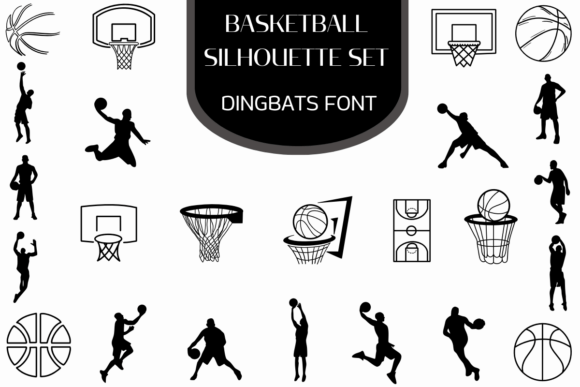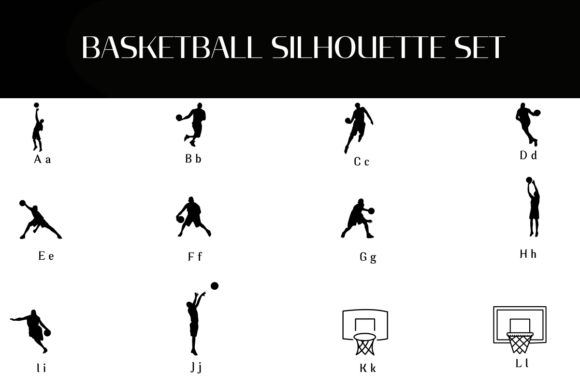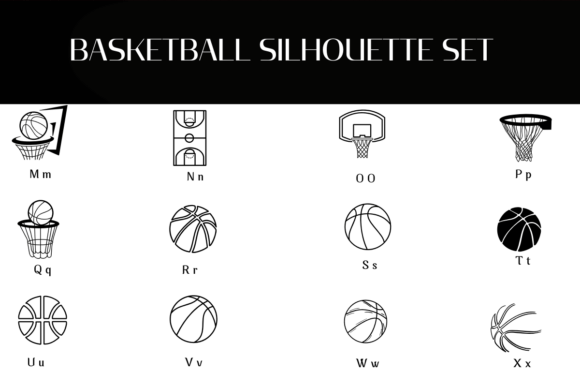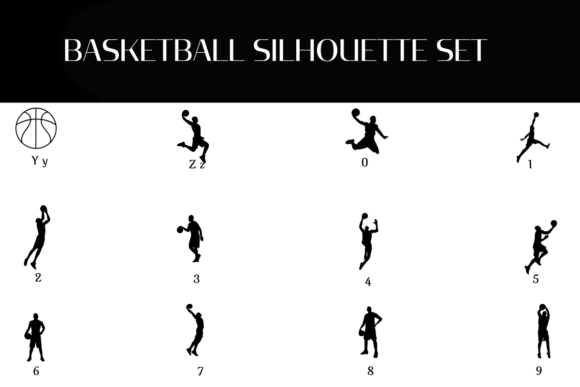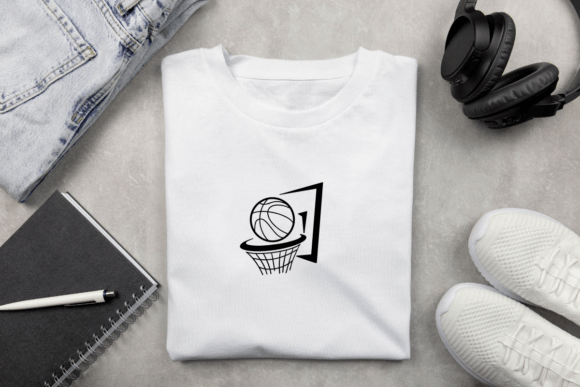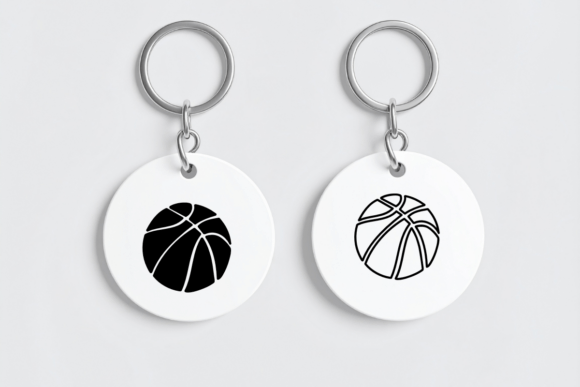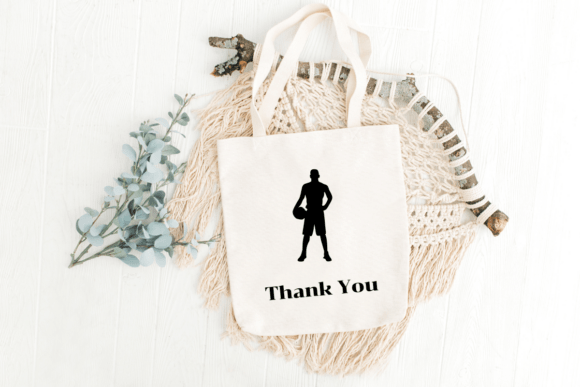
Score Big with the Basketball Silhouette Set Font
As you sit in front of your computer, staring at a blank canvas, and the deadline is looming, you finally get that spark of creativity. The excitement builds up as you imagine the perfect sports-themed design – a dynamic layout that captures the essence of the game. But, you need the right tools to bring your vision to life. That’s where the Basketball Silhouette Set Font comes in – a high-energy dingbats font that offers a comprehensive collection of icons.
Designed specifically for sports enthusiasts and designers alike, this versatile font provides a mix of detailed silhouettes and clean line art, making it perfect for high-impact graphics, technical diagrams, or subtle background patterns. Whether you’re designing for a professional league or a local community team, the Basketball Silhouette Set Font brings a professional, athletic edge to your layouts, making it a valuable addition to any designer’s toolkit.
Basketball Silhouette Set Font Key Features
- Unique Characteristics: The Basketball Silhouette Set Font features a unique, hand-drawn design that resembles the silhouette of a basketball player in motion.
Designer Review: Basketball Silhouette Set Font
Overall, I think the Basketball Silhouette Set Font is a fun and unique addition to any sports-themed project. ✨ The font’s bold and playful design is sure to capture the attention of basketball enthusiasts.
- Customizable silhouettes for different basketball players, offering a range of options for designers.
- Highly detailed and realistic designs, making it perfect for projects that require a high level of realism.
- Easy to use and integrate into various design projects, including logos, posters, and more.
One thing to keep in mind is that the font’s design may not be suitable for all types of projects. ⚠️ For example, the font’s bold and playful style may not be the best fit for more formal or professional designs.
- May not be suitable for all types of projects, particularly formal or professional designs.
- The font’s bold design may be overwhelming in certain contexts.
- Some users may find the font’s customization options to be limited.
Overall, I think the Basketball Silhouette Set Font is a great addition to any sports-themed project, but it’s essential to consider the context and design requirements before using it.
Use the Basketball Silhouette Set Font to add a fun and sporty touch to your designs. Experiment with different font sizes, colors, and positions to create unique and eye-catching effects.
The Basketball Silhouette Set Font is perfect for:
- Sporting events and tournaments
- School and university branding
- Marketing materials and advertisements
- Personalized gifts and merchandise